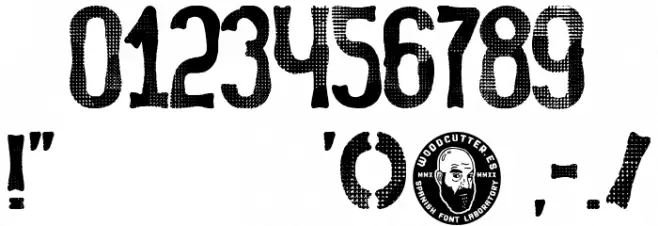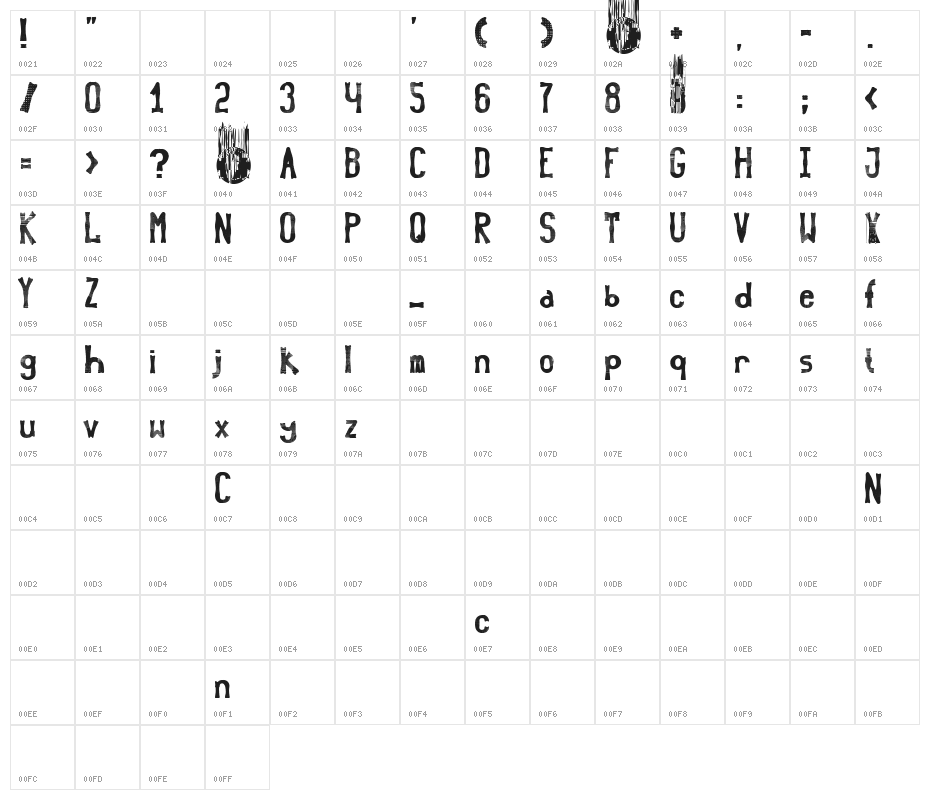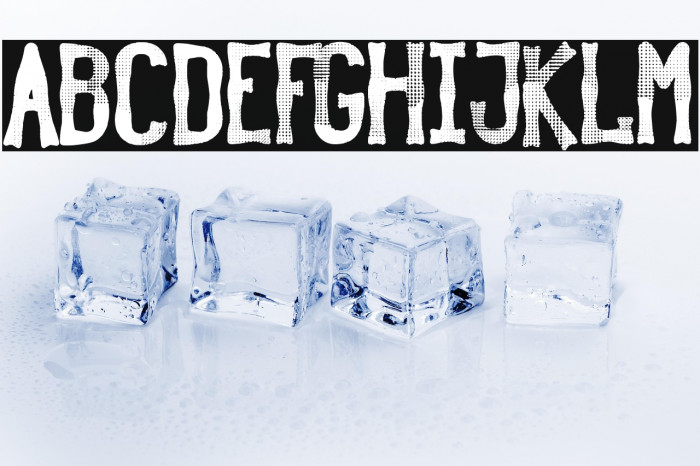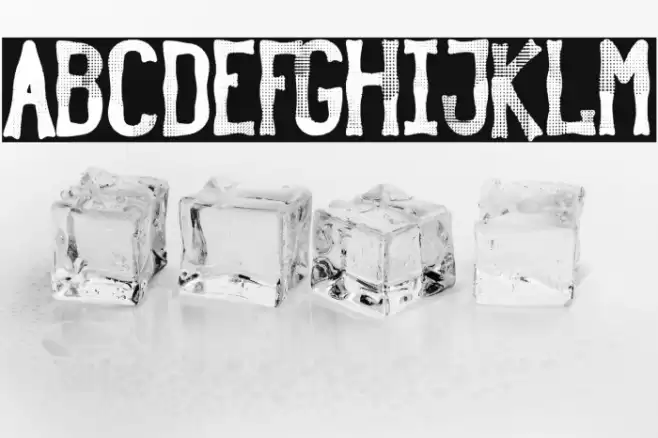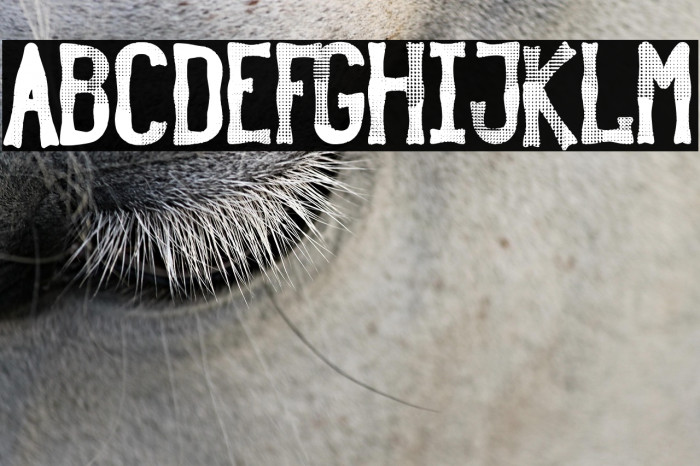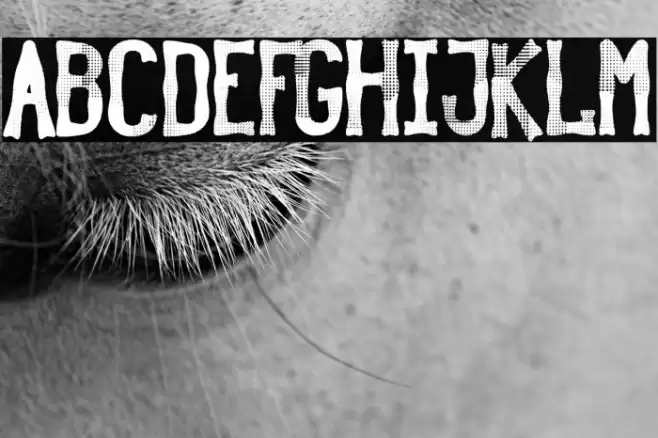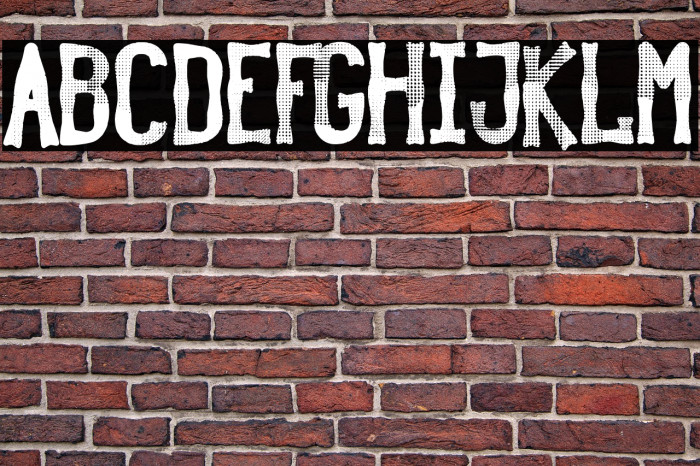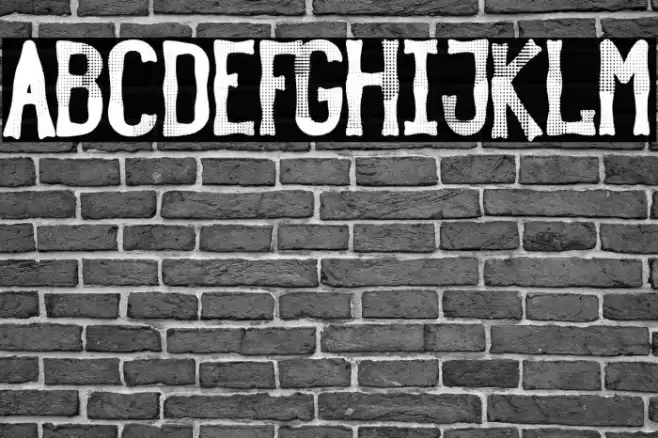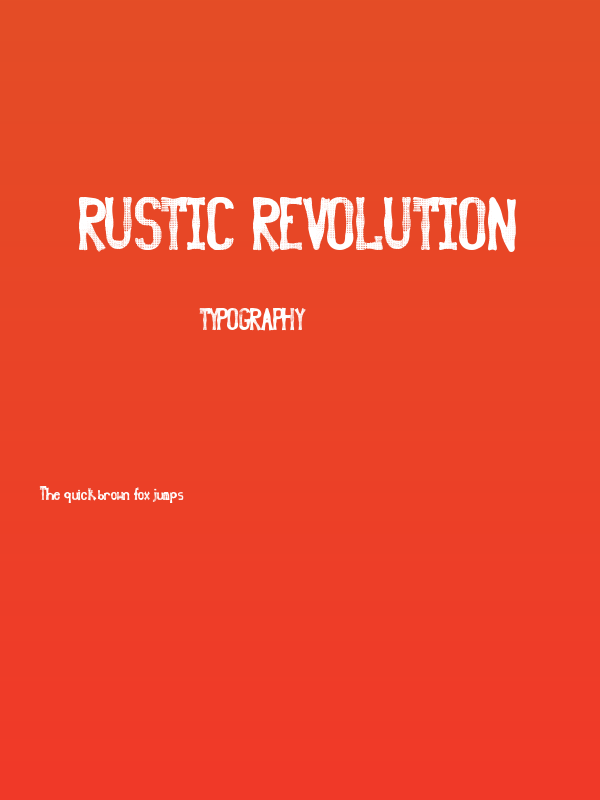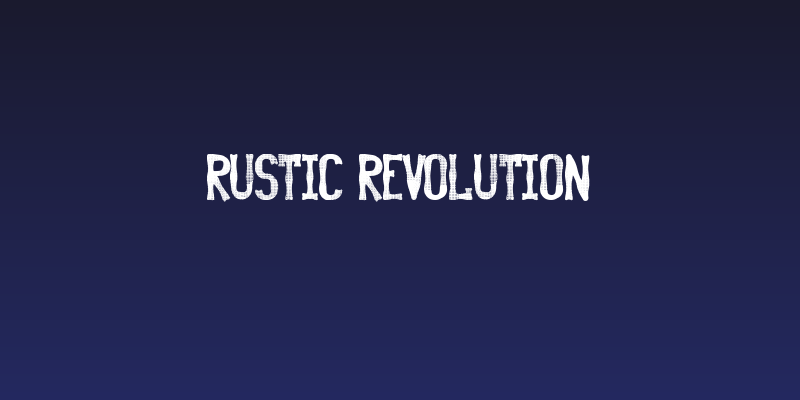
Rustic Revolution Font
Rustic Revolution Description
This font features a bold and textured design, reminiscent of a rustic and handcrafted style. The characters are uneven and slightly distorted, giving them a unique and organic appearance. The texture within each letter resembles a woodcut or stamped effect, adding depth and a tactile quality. The uppercase and lowercase letters maintain a consistent style, with exaggerated curves and irregular edges. Numbers and special characters follow the same aesthetic, ensuring a cohesive look across all elements. This font is ideal for projects that require a rugged, vintage, or artisanal feel.
| Use Case | Logos, Posters, Branding |
| Proposed Projects | Perfect for branding, packaging, posters, and any design needing a vintage or artisanal touch. |